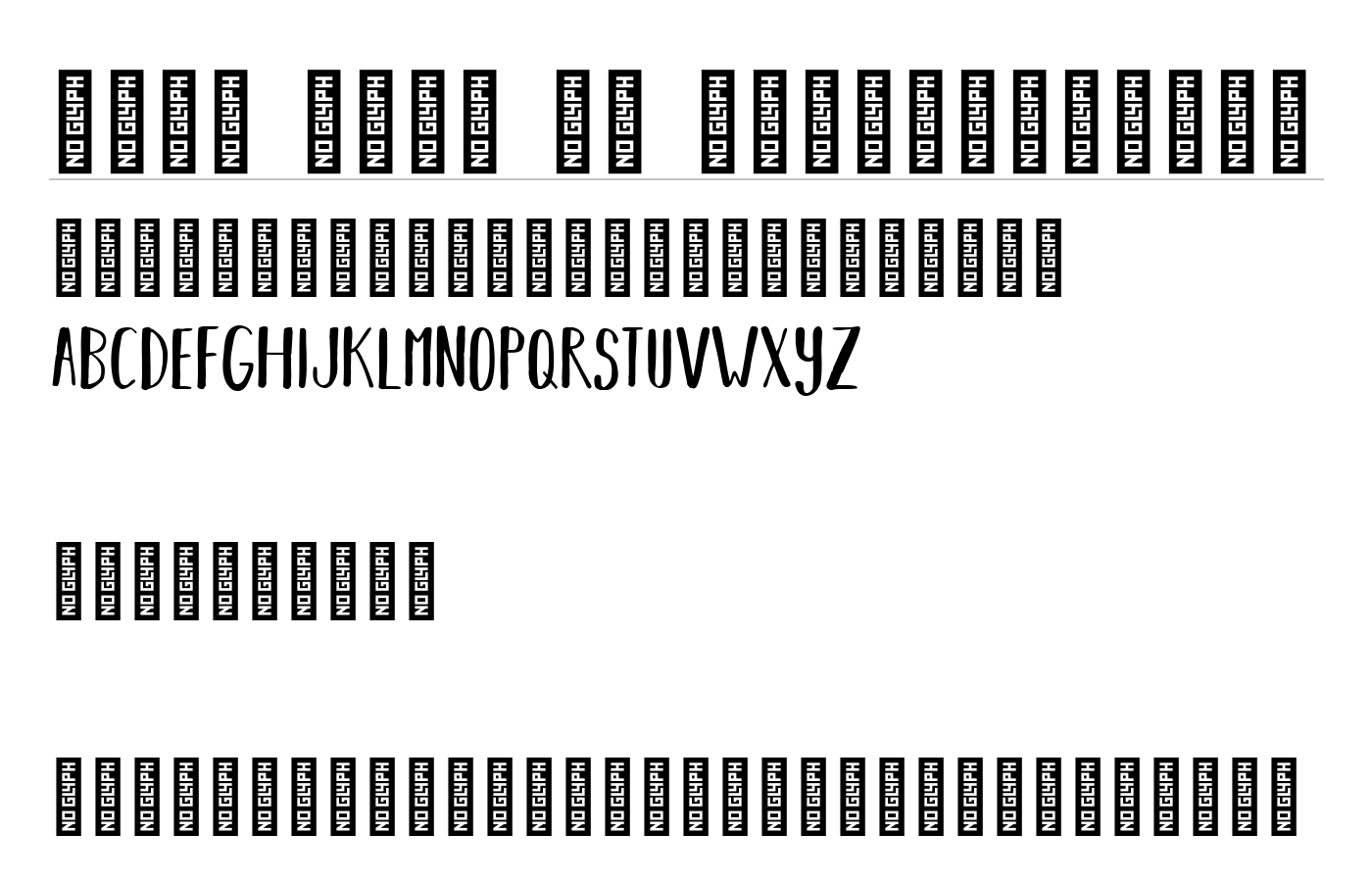
Bear Hugs by RatticSassin is a playful, narrow sans serif font with a hand-drawn feel. Its tall, slightly irregular letterforms convey warmth and friendliness, making it great for casual designs, children's projects, or any creative work that needs a quirky, approachable vibe. This font shines in headlines, invitations, and branding that wants a personal touch.
BEAR HUGS BY RATTICSASSIN Font
About BEAR HUGS BY RATTICSASSIN Font